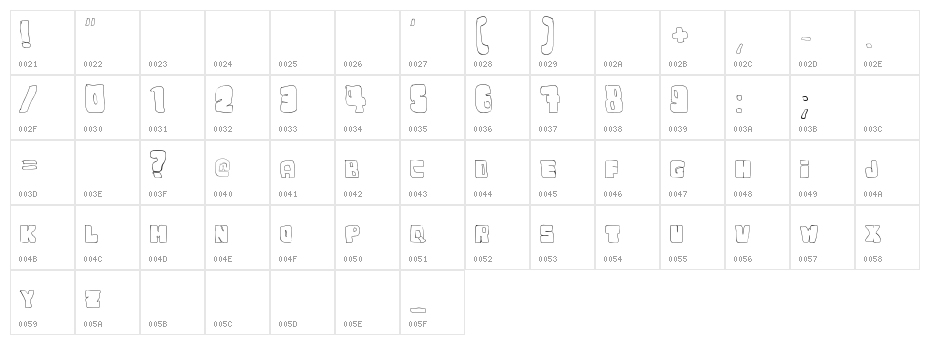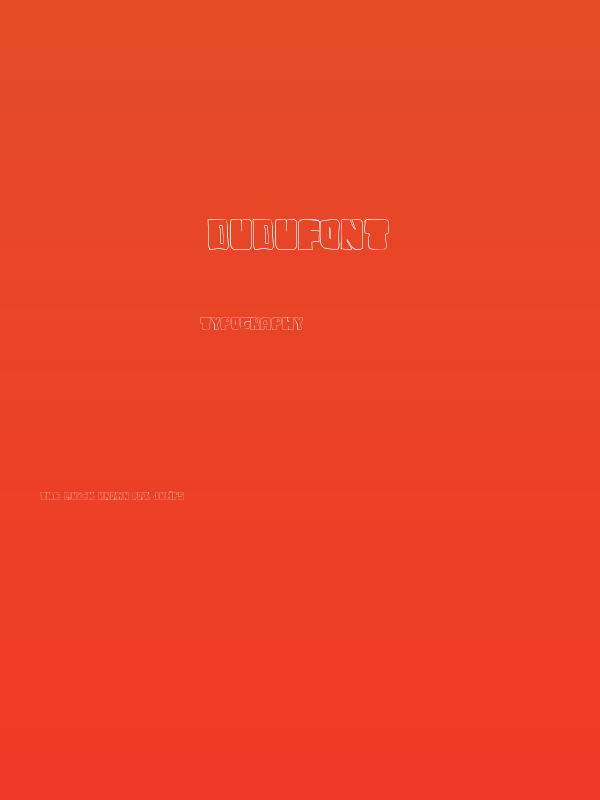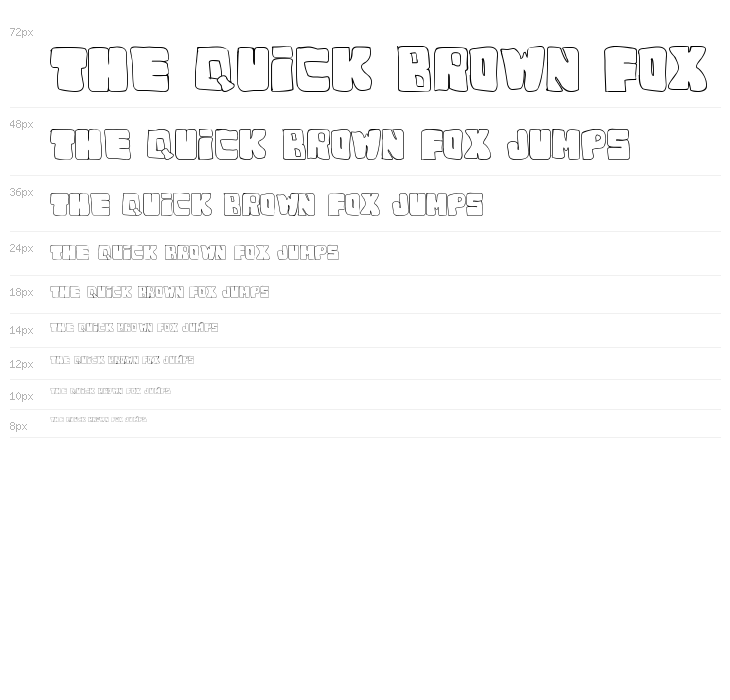
dudufont Font
dudufont Description
This font features a playful and bold design with a bubble-like appearance. The characters are outlined, giving them a cartoonish and informal style. Each letter and number is distinct, with rounded edges and a slightly irregular shape that adds to the whimsical feel. The font is highly decorative, making it ideal for projects that require a fun and engaging look. The spacing between characters is consistent, allowing for easy readability despite the unique design. The font's style is reminiscent of hand-drawn or doodle art, making it suitable for creative and casual applications.
| Overall Style | Playful, Cartoonish |
| Proposed Projects | Ideal for children's books, comic strips, playful branding, and party invitations. |